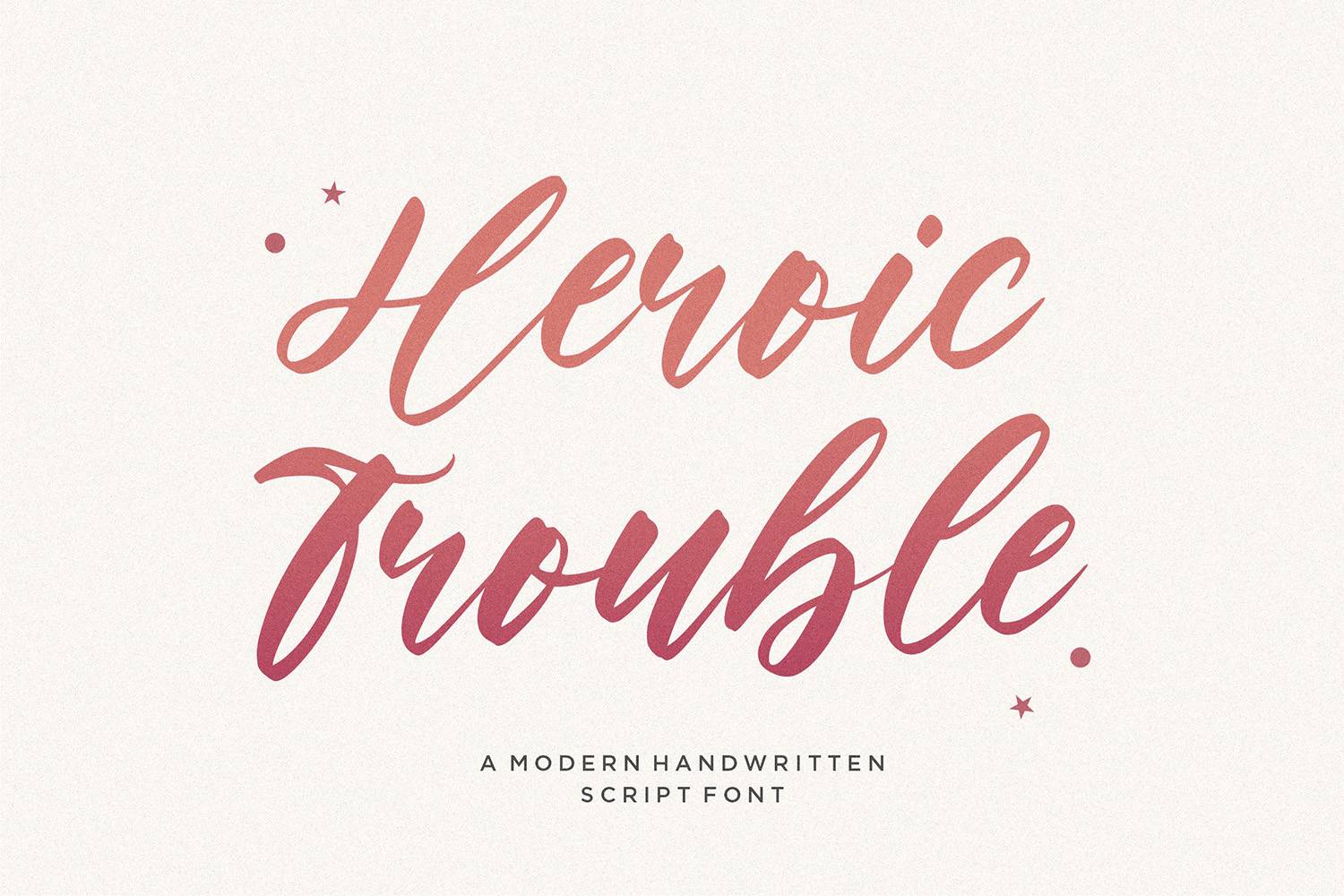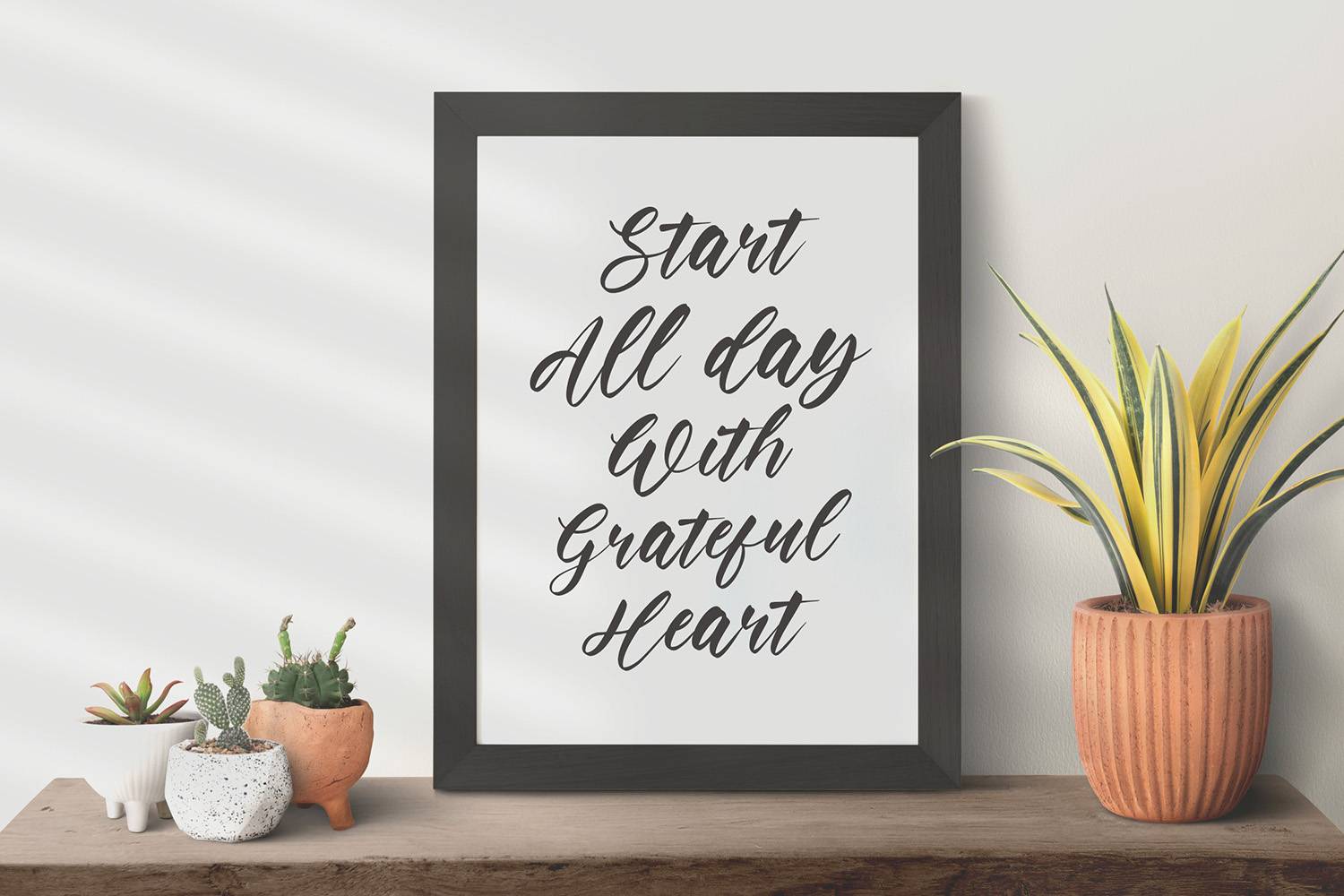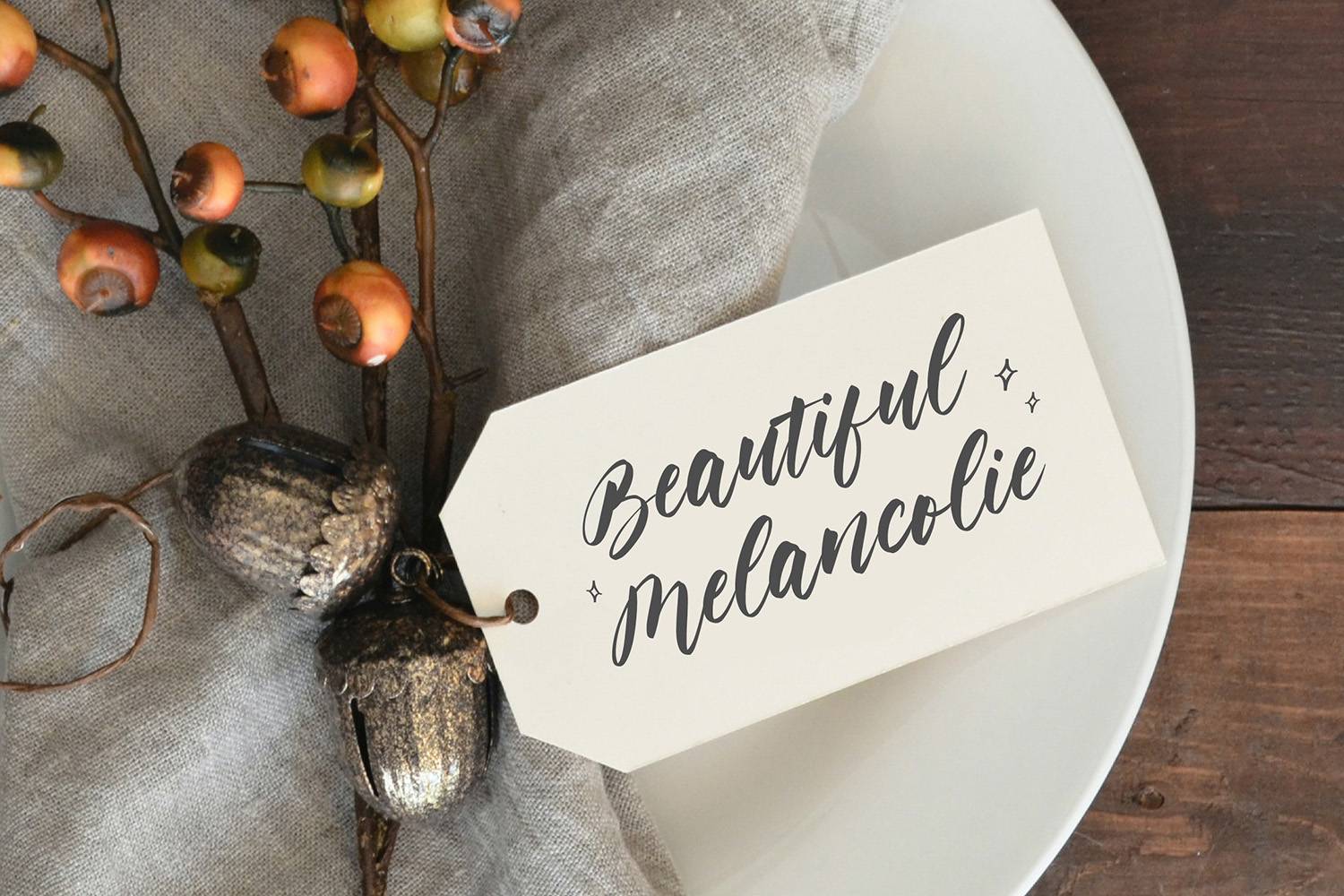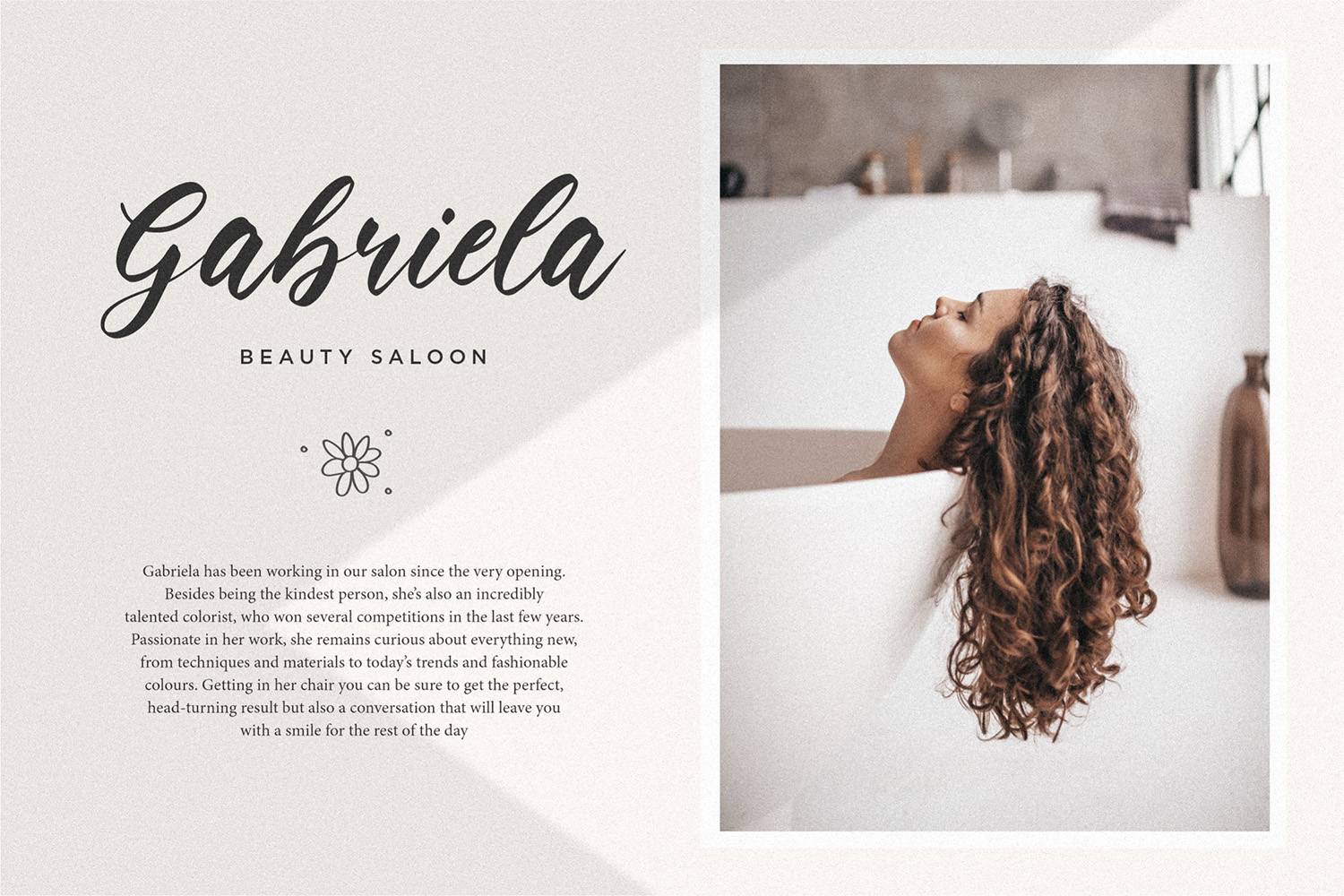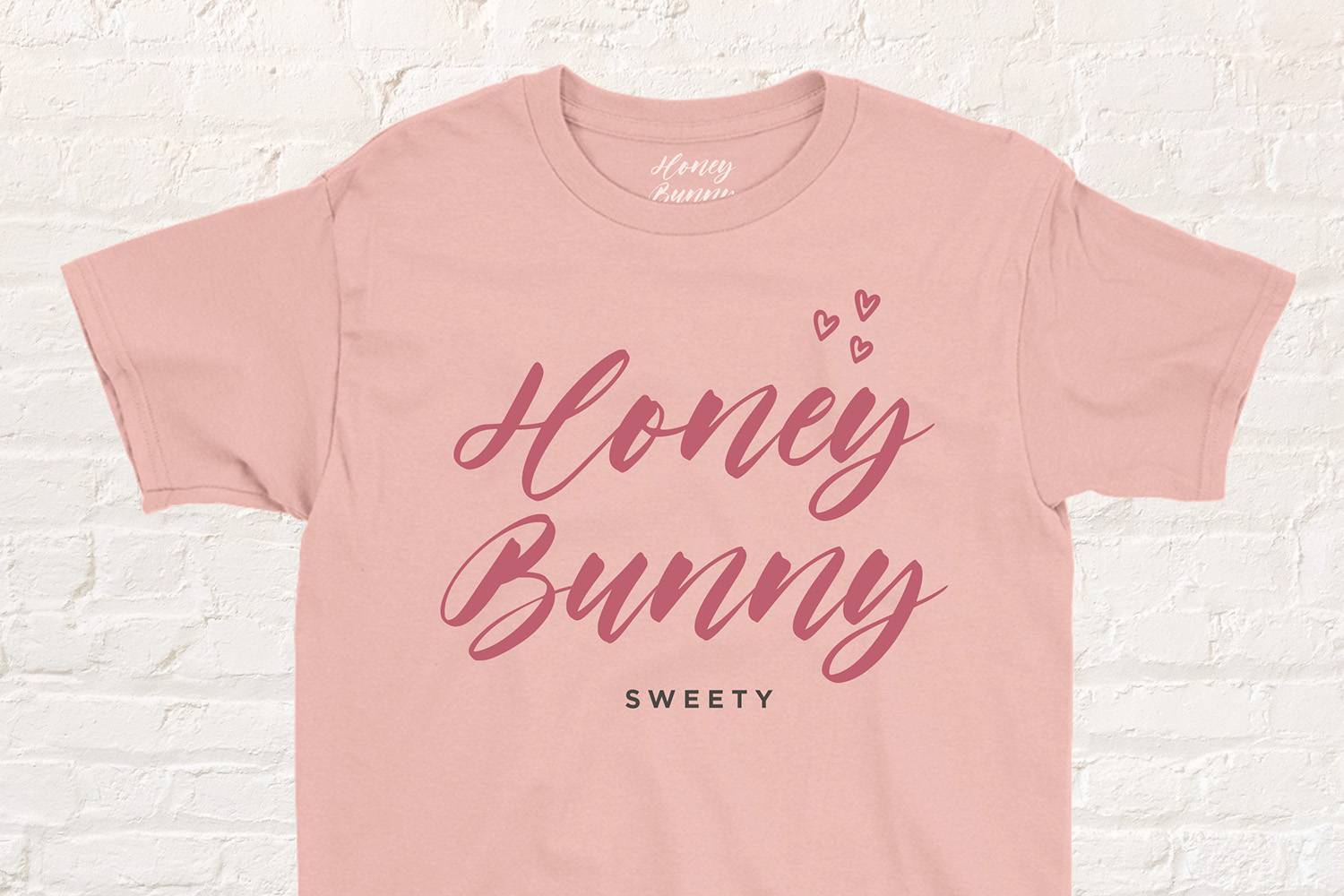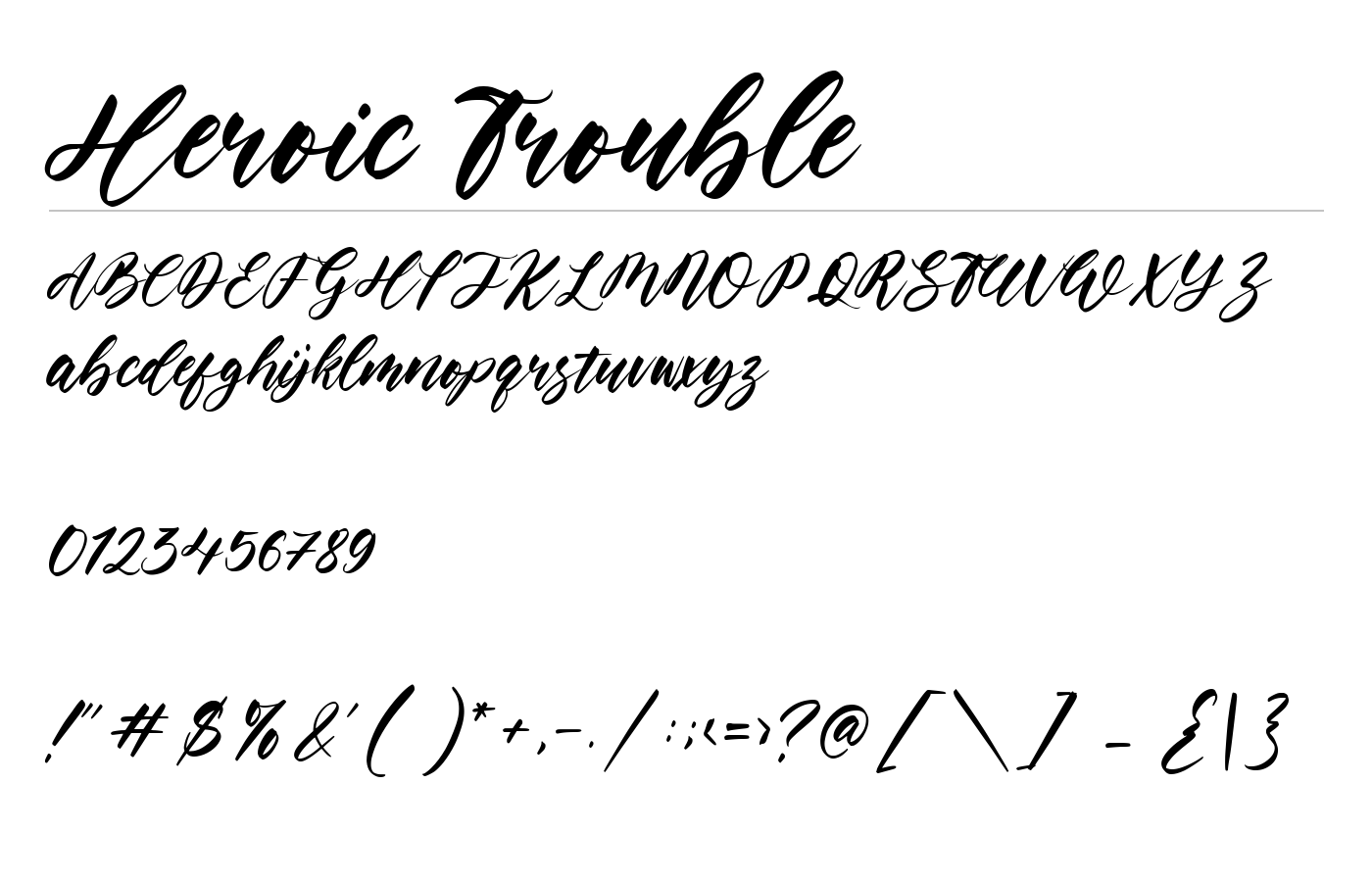
Heroic Trouble is an elegant script font with a lively, flowing style that captures the charm of hand-lettered calligraphy. Featuring smooth, varying stroke widths and slender, connected letterforms, it exudes a graceful and playful personality perfect for creative branding, invitations, and stylish headlines where a personal, artistic touch is desired. This font shines in designs that want to convey warmth, sophistication, and a bit of whimsical flair.
Heroic Trouble Font
About Heroic Trouble Font